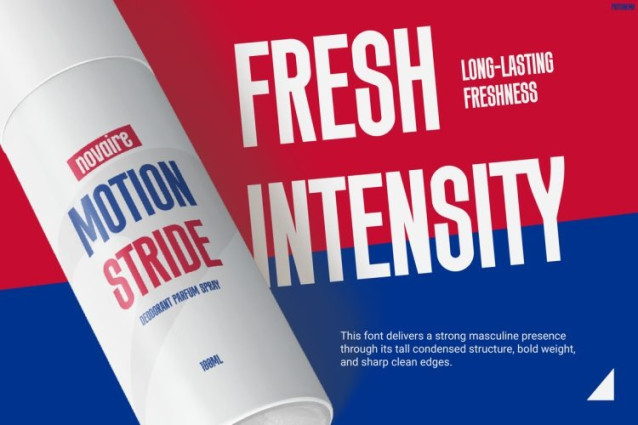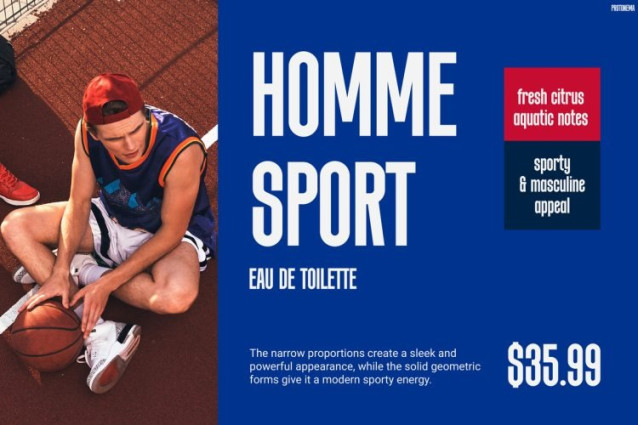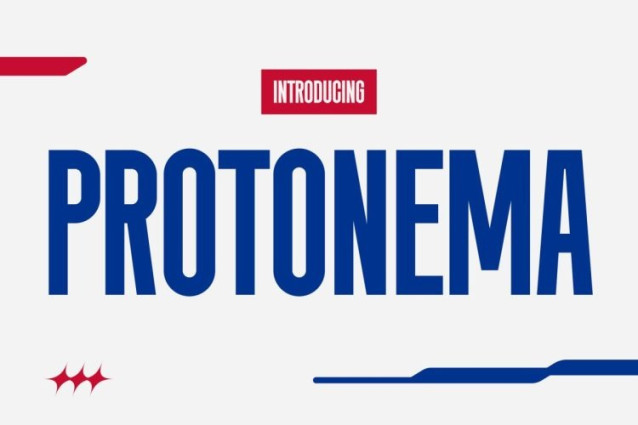
Protonema Font
Protonema Font a bold sporty aesthetic with tall condensed characters, sharp edges, and clean modern structures. Furthermore, the font creates a strong visual rhythm that immediately captures attention in both digital and print designs. Because of its sleek geometry and athletic personality, Protonema feels energetic, premium, and highly professional at the same time. In addition, the balanced spacing and powerful letterforms make headlines look cleaner, sharper, and easier to read. As a result, every design appears more modern, dynamic, and visually striking.
Moreover, Protonema combines futuristic elegance with masculine energy, so it works perfectly for branding that needs confidence and impact. Whether you are creating social media graphics, product packaging, or promotional campaigns, this font helps your visuals feel stronger and more memorable. Therefore, Protonema becomes an excellent choice for designers who want typography that looks bold yet stylish.